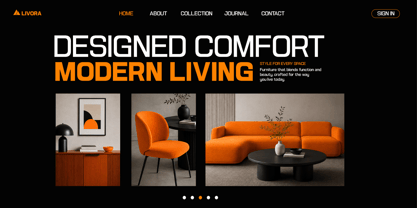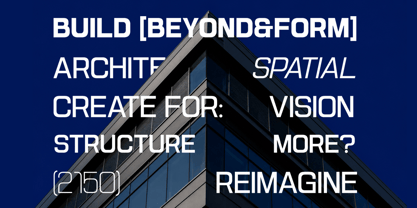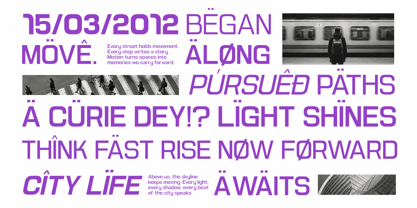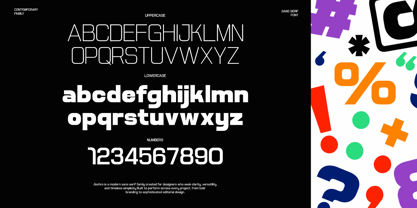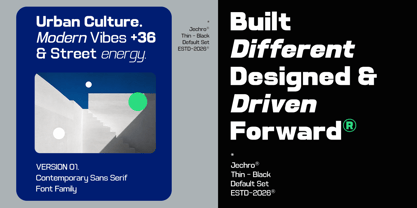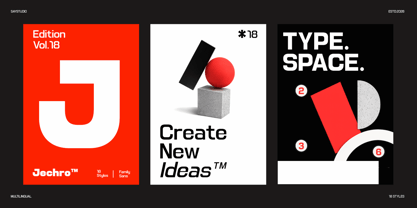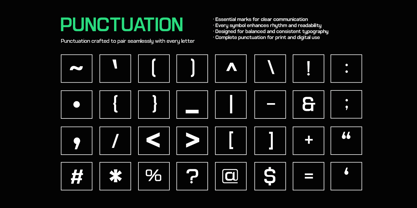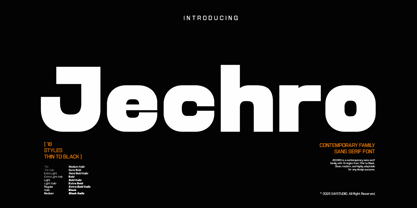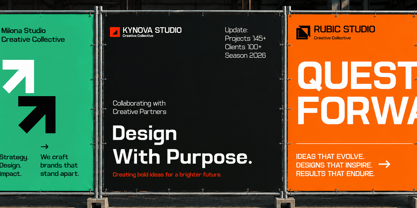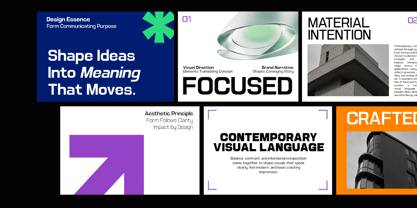
Jechro
by Say Studio
The Jechro Font Family was designed by Mussyayin and published by Say Studio. Jechro contains 18 styles and family package options. More about this family
Jechro is a modern geometric sans serif font family designed to bring clarity, confidence, and versatility to contemporary design. Featuring clean lines, balanced proportions, and a refined minimalist aesthetic, Jechro is ideal for branding, editorial layouts, UI/UX design, architecture presentations, advertising, and premium visual identities.
Built as a complete professional type system, Jechro includes 9 meticulously crafted weights from Thin to Black, paired with matching Regular and Italic styles for maximum design flexibility. It also comes with Variable Font technology, allowing seamless weight adjustments for smoother workflows and greater creative control across print and digital projects.
Whether you're creating logos, magazine covers, fashion campaigns, websites, packaging, corporate branding, social media graphics, posters, or creative portfolios, Jechro delivers exceptional readability, modern character, and timeless appeal.
Designers: Mussyayin
Foundry: Say Studio